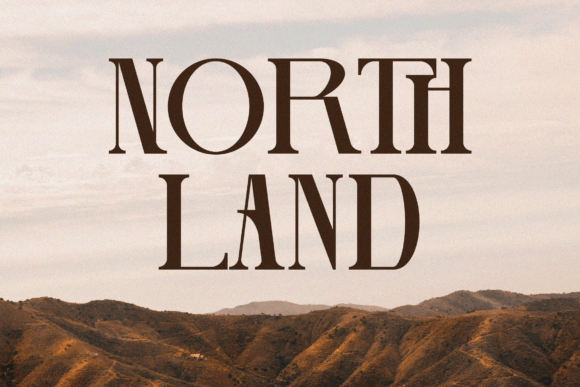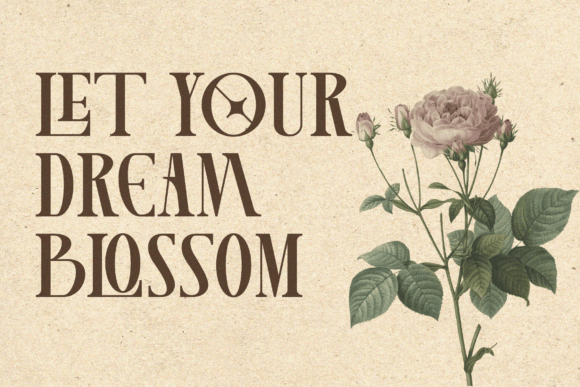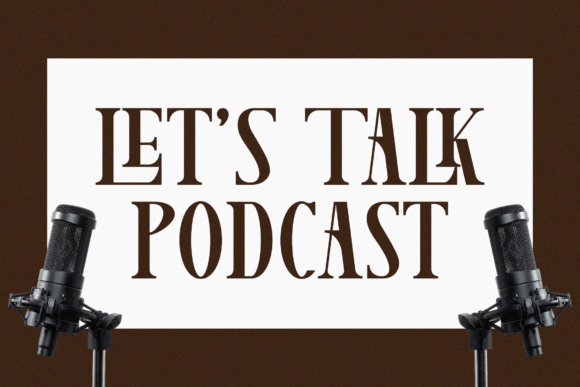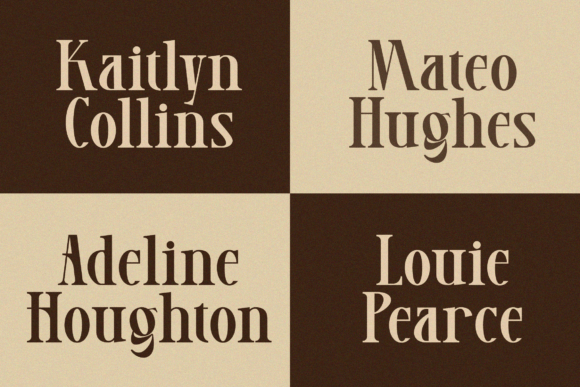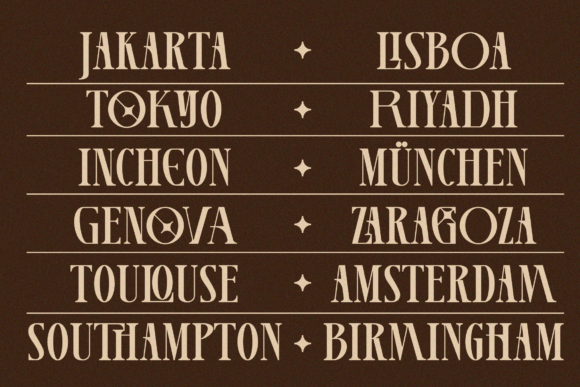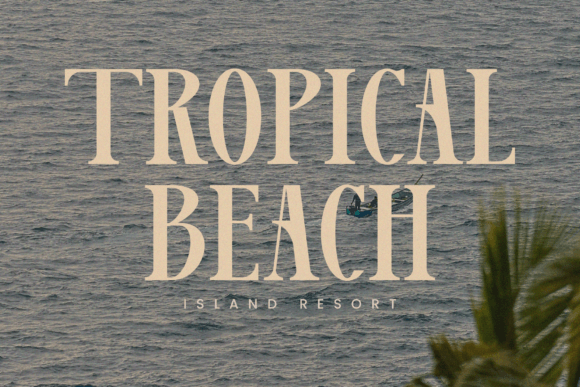
Introduction to Lamoonze Font
Have you ever stared at a blank page, waiting for the perfect font to bring your creative project to life? The moment of inspiration hits, and you finally find that one font that makes everything click. For designers, this moment is invaluable, and it’s exactly what you get with the Lamoonze Font.
Lamoonze Font is more than just a design resource – it’s a game-changer. Its elegant and bold serif design makes it perfect for logos, branding, invitations, stationery, wedding designs, social media posts, and so much more. With its PUA encoded glyphs, you can access all the characters you need, ensuring that your design is complete and professional-looking.
Key Features of Lamoonze Font
- Unique, modern design style that can add a touch of elegance to any creative project
Honest Review: Lamoonze Font
I recently stumbled upon the Lamoonze Font and was immediately drawn to its unique and quirky style. As a designer, I appreciate a good design resource, and this font definitely delivers.
One of the things that stands out about the Lamoonze Font is its versatility. ✨ It’s perfect for a variety of creative projects, from branding and marketing materials to digital art and design. The font’s high quality and crisp lines make it a great addition to any design.
- Unique and quirky style
- High quality and crisp lines
- Perfect for a variety of creative projects
- ⚠️ Limited character set (no Cyrillic or Greek characters)
- ⚠️ Not ideal for large blocks of text (best for headlines and titles)
Overall, I’m really impressed with the Lamoonze Font. It’s a great addition to any design resource collection, and I’ll definitely be using it in my future projects.
Tips for Getting the Most Out of Lamoonze Font